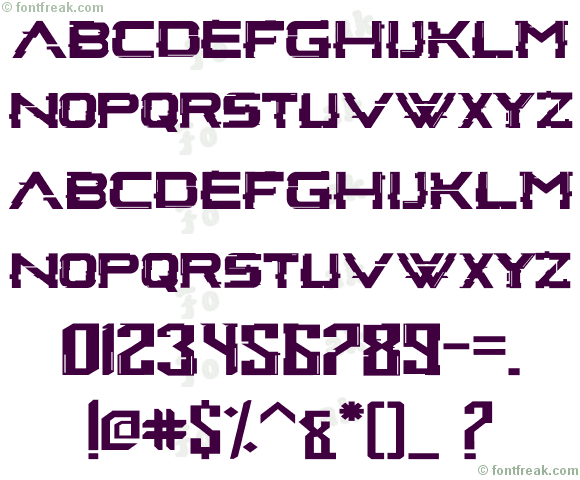
Glitch Inside
About Glitch Inside
Glitch Inside by MaknaStudio is a captivating display font that embraces a distinct aesthetic rooted in the digital age. This decorative font showcases a unique glitch effect, characterized by fragmented letterforms that evoke a sense of movement and distortion. The stroke weight varies, providing a dynamic contrast that enhances its modern appeal. The spacing is thoughtfully designed, allowing each character to stand out while maintaining a cohesive visual flow. This font will undoubtedly catch the eye of anyone looking for a contemporary twist on typography.
Ideal for various creative applications, Glitch Inside is perfect for movie posters, music album covers, and tech-themed branding. Its bold and edgy style makes it suitable for event flyers, particularly those targeting a younger audience or a niche market. Additionally, the font can be effectively used in digital content, such as social media graphics, where attention-grabbing visuals are essential. Graphic designers, content creators, and small business owners will find this font to be an invaluable asset in their creative toolkit.
What sets the Glitch Inside font apart is its ability to convey a sense of urgency and excitement, making it an excellent choice for projects that need to stand out in a crowded market. Its unique design invites exploration and engagement, appealing to audiences looking for innovative and fresh design solutions. With the Glitch Inside font free download available, you can easily incorporate this striking typeface into your next design project. Embrace the digital glitch aesthetic and elevate your work with a font that truly breaks the mold.